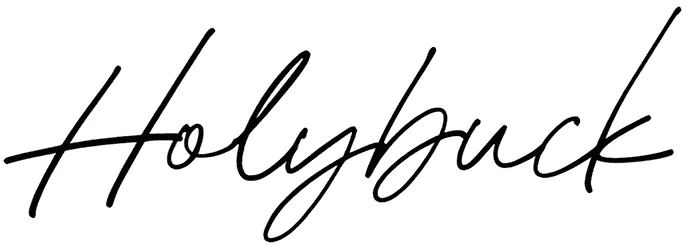
Holybuck Font
When you look at the Holybuck font, its elegant style grabs your attention. This script font has a charismatic personality that seems memorable to the viewers.
You may use the Holybuck font in several situations, such as invitation cards, magazines, and business cards. This handwritten font’s letters are constructed of thin italic lines, making them stunning. So give this a try and present your content uniquely.